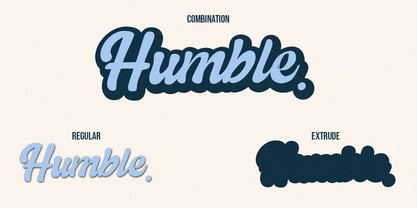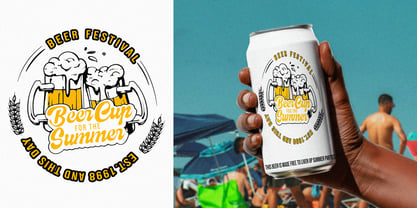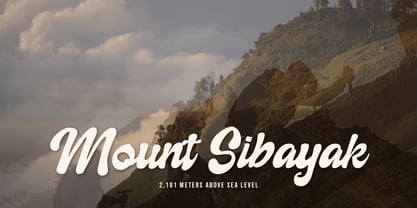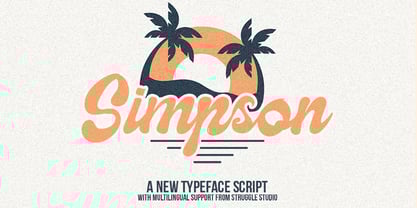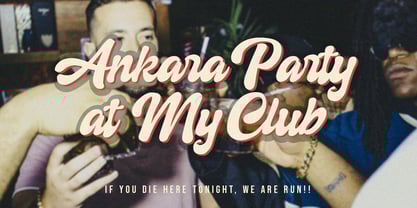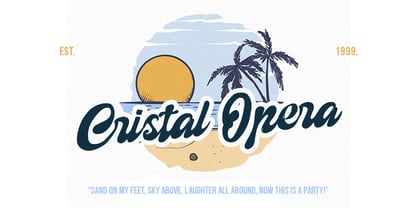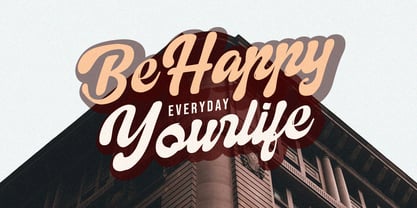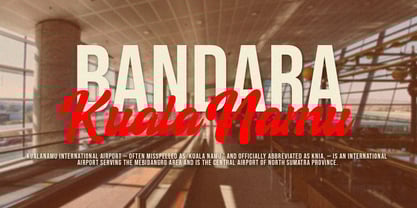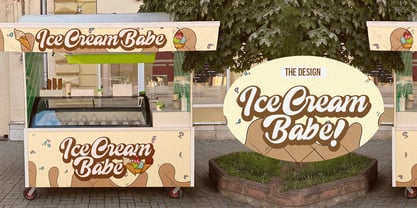
Simpson
by Struggle Studio
The Simpson Font Family was designed by Andri Kurniawan and published by Struggle Studio. Simpson contains 2 styles and family package options.
Simpson is a retro-style typeface that combines soft calligraphy elements with a touch of tropical design. Its flowing, smooth characters convey a relaxed and warm feel, perfect for beach-themed branding, summer posters, or products with a nostalgic feel.